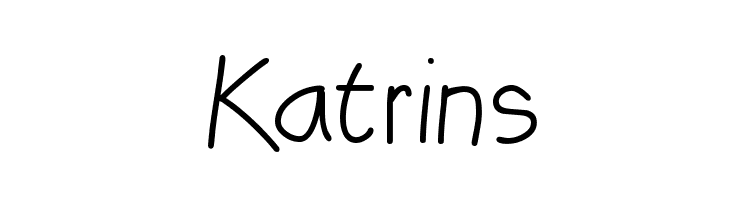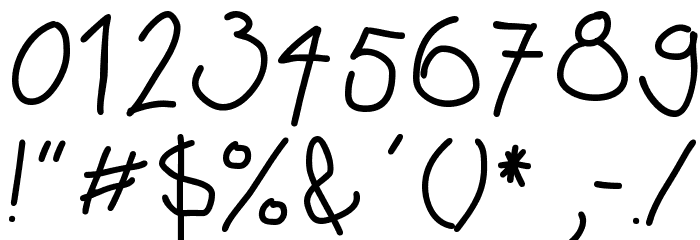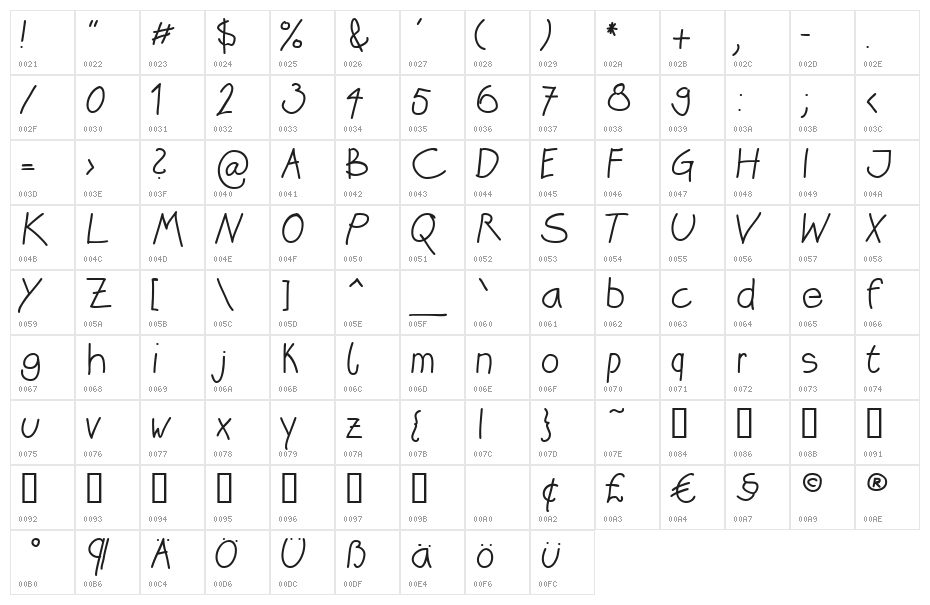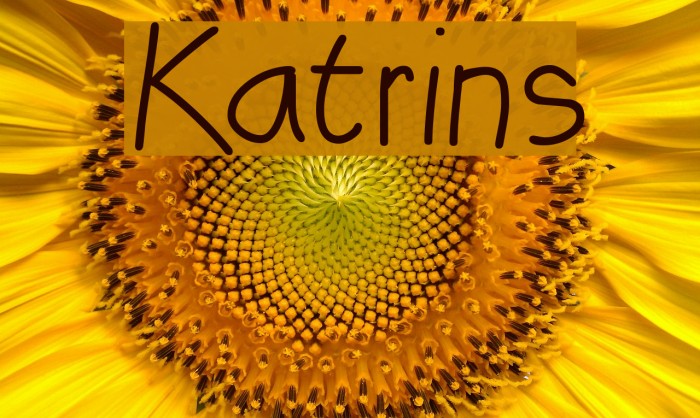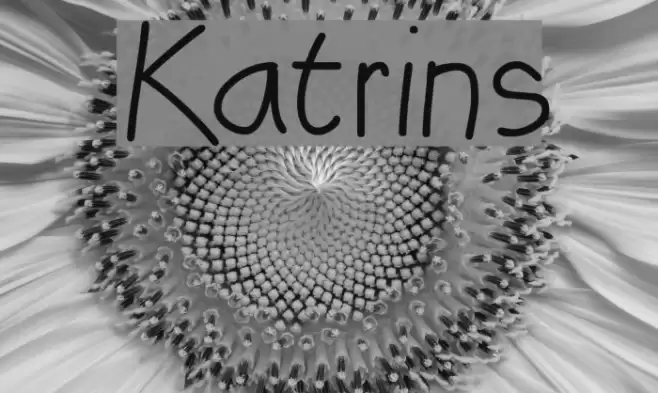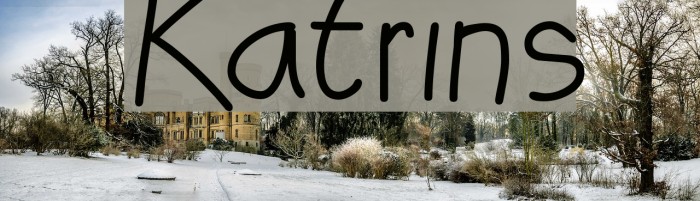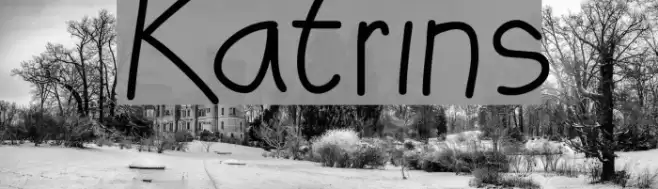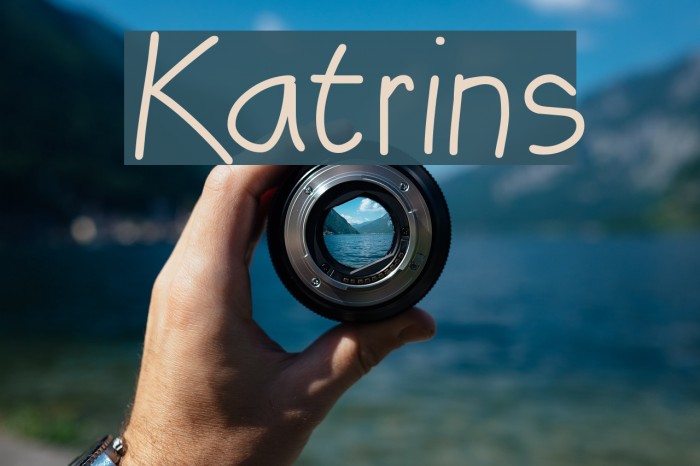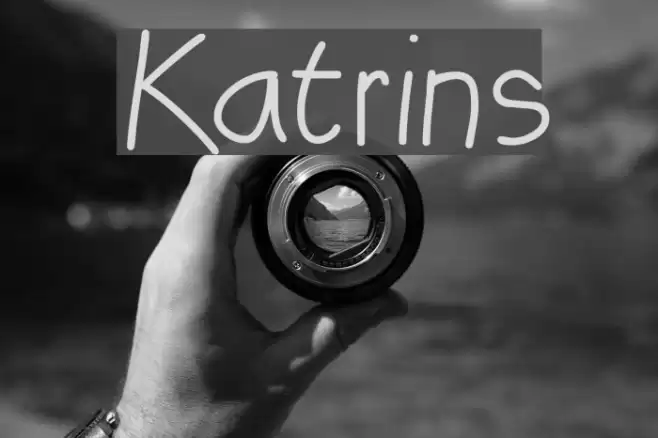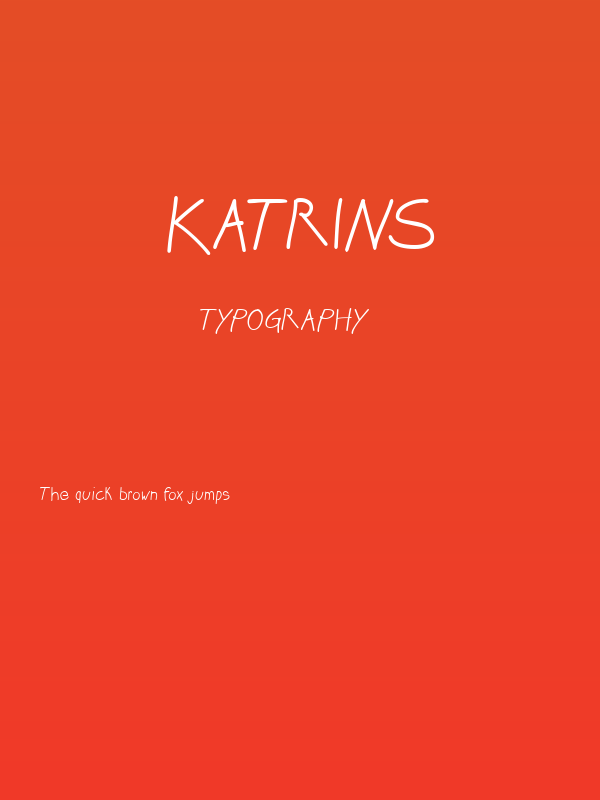
Katrins Font
Katrins Description
This font features a playful and casual handwritten style, characterized by its smooth, flowing lines and slightly irregular shapes. The letters have a natural, organic feel, with a slight tilt that adds to its informal charm. The uppercase and lowercase letters are well-balanced, maintaining a consistent stroke width throughout. The numerals and special characters follow the same playful aesthetic, making the font versatile for various creative applications. Its legibility is enhanced by the clear distinction between each character, despite the whimsical design.